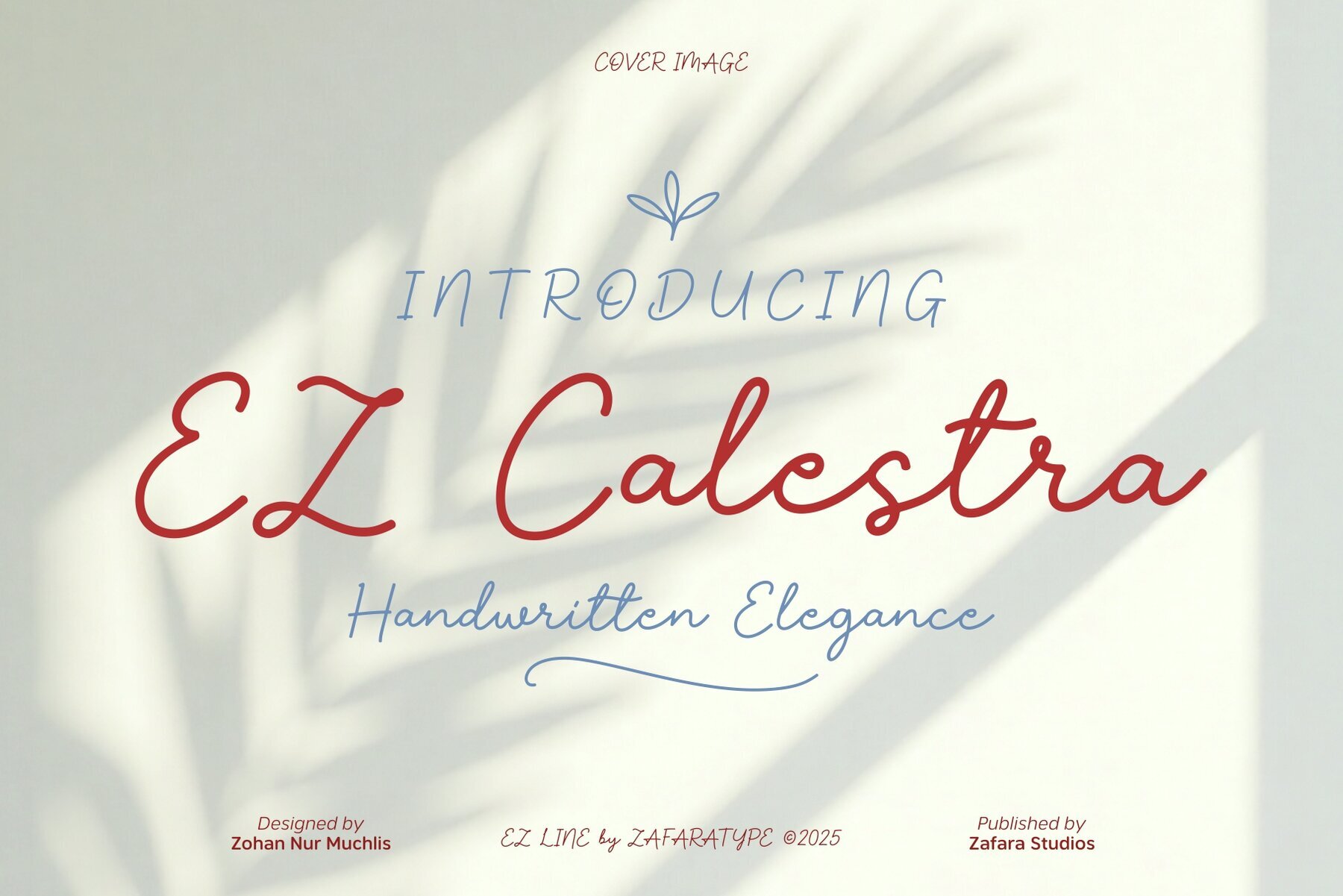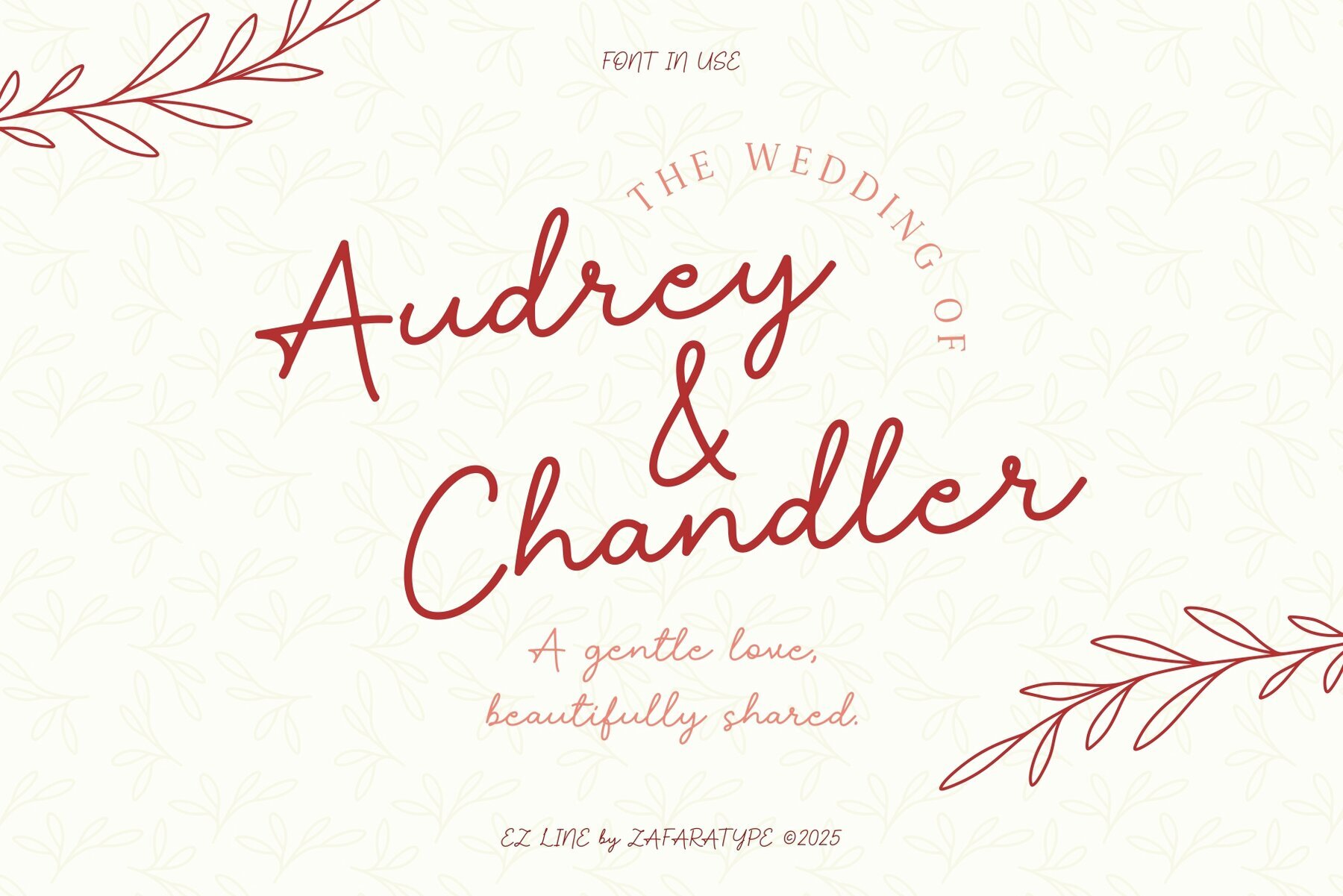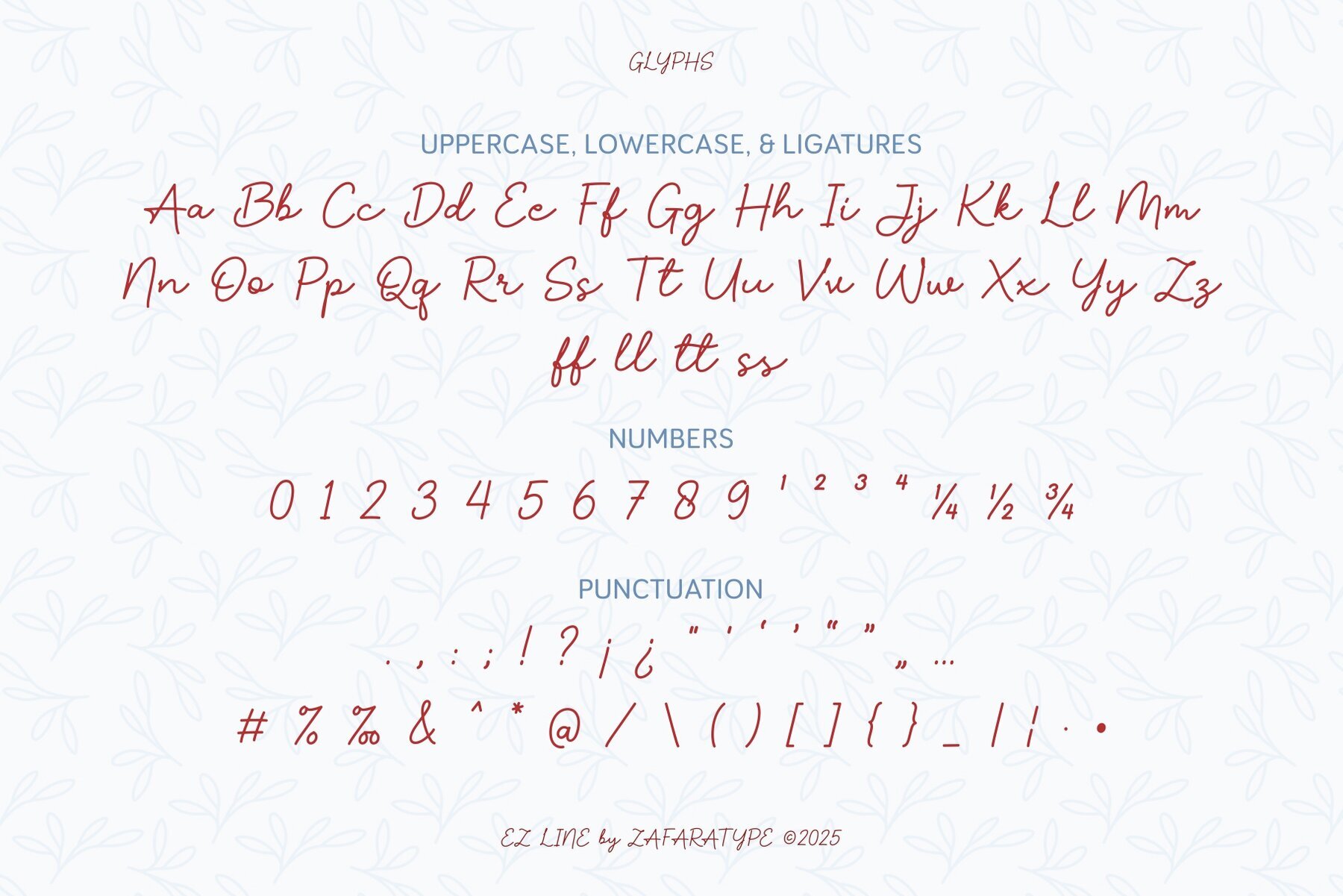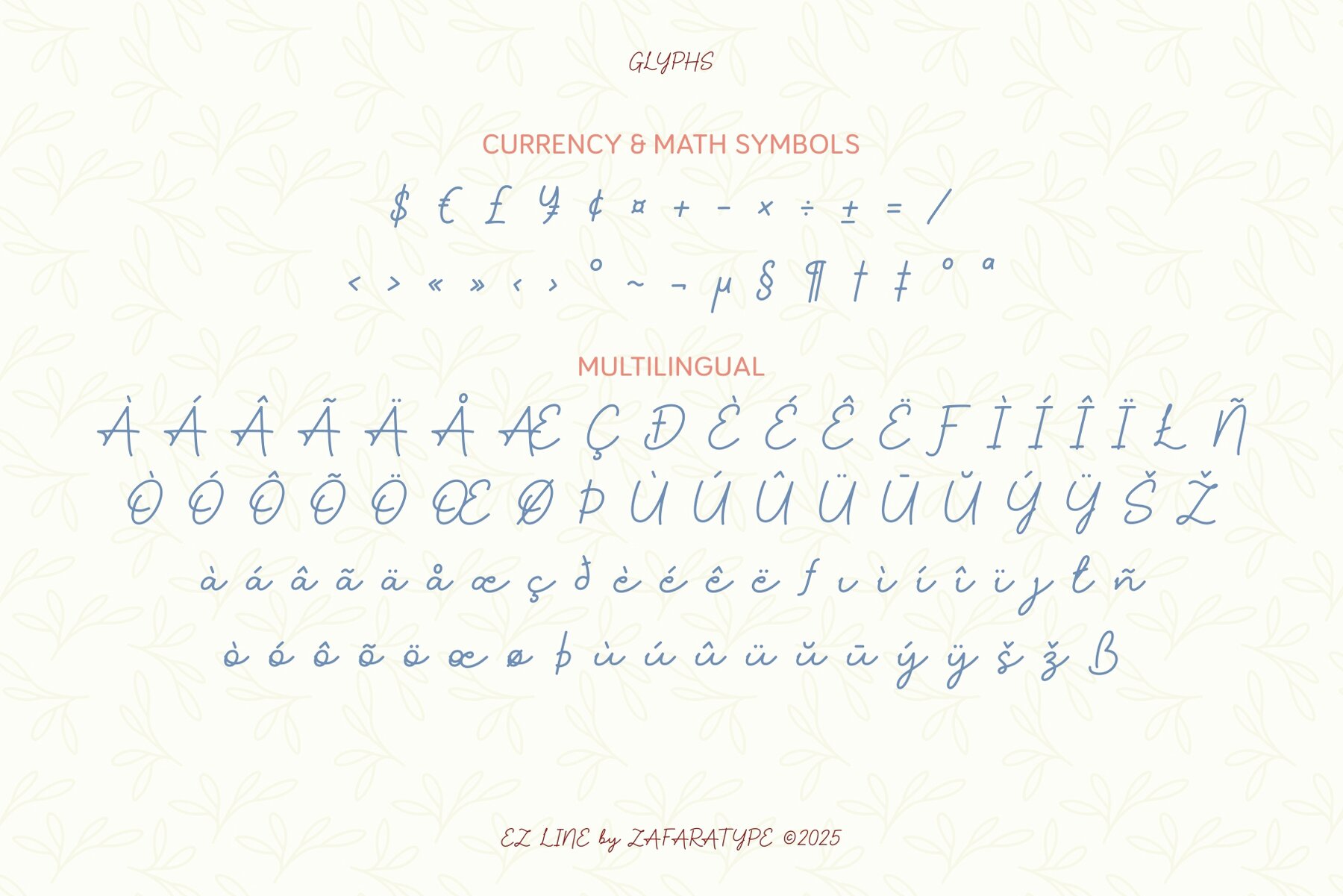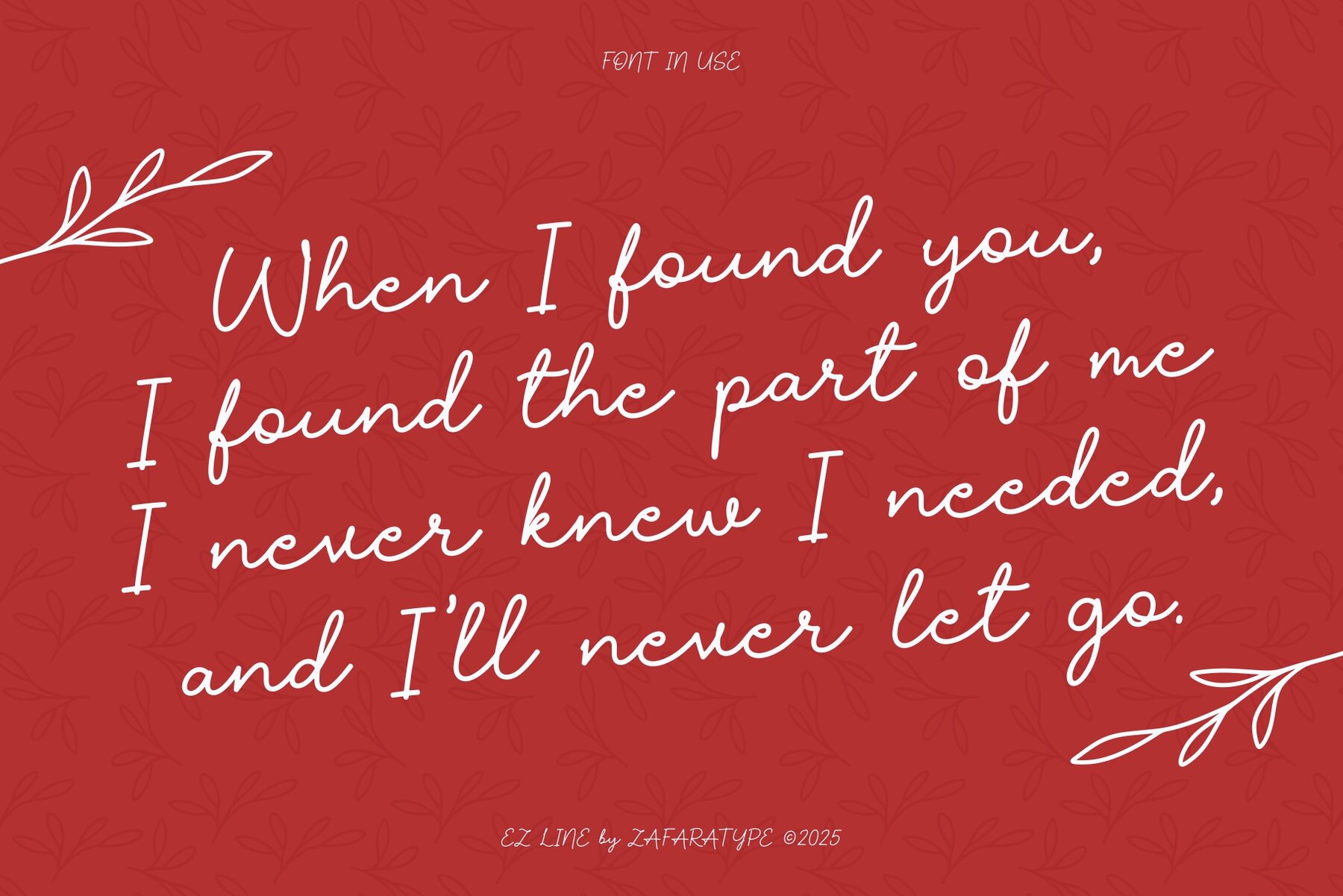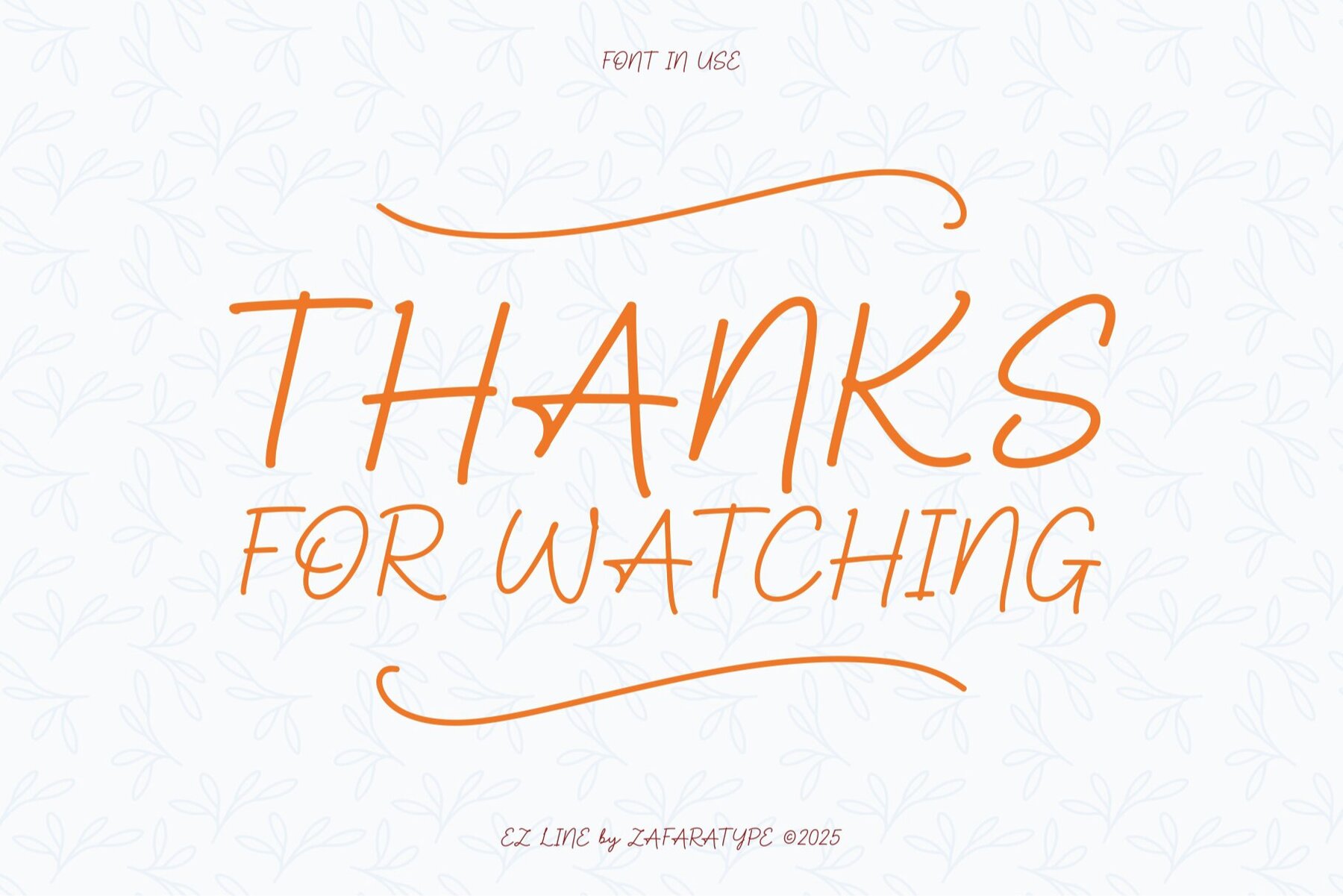
EZ Calestra
EZ Calestra takes inspiration from the fluidity and charm of handwritten script, offering a font that exudes warmth and sophistication. The delicate strokes and gentle curves are indicative of a pure form of handwriting, characterized by its elegant and emotional undertones. This typeface seamlessly integrates into projects requiring a personal touch, whether it’s bridal stationery, branding, or heartfelt quotes. Each character is crafted with a smooth rhythm, providing a refined yet free-flowing aesthetic. This makes EZ Calestra ideal for any project seeking to convey authenticity and charm. Its versatility shines through in both intimate settings and professional design contexts.EZ Calestra: Timeless Handwritten Elegance